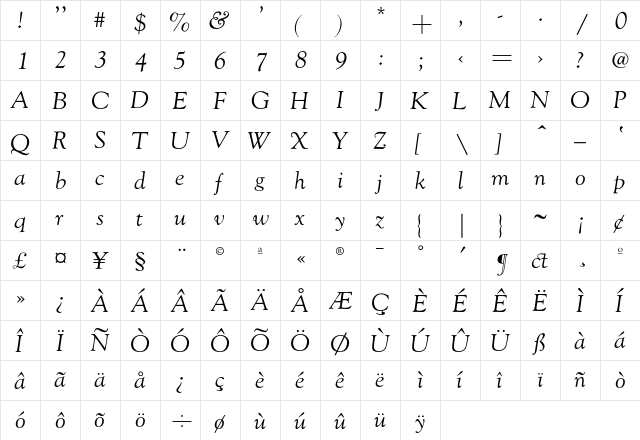
GoudyOldstyleZL-Italic Regular
Design Context for GoudyOldstyleZL-Italic Typeface
GoudyOldstyleZL-Italic brings classic typographic sensibility to the table — its serifs and measured letterforms reflect centuries of print heritage. Its italic angle brings a sense of urgency and motion to the letterforms.
Pro Tip: Set GoudyOldstyleZL-Italic with slightly loose tracking in headlines to let each letterform's detail read clearly at display sizes.